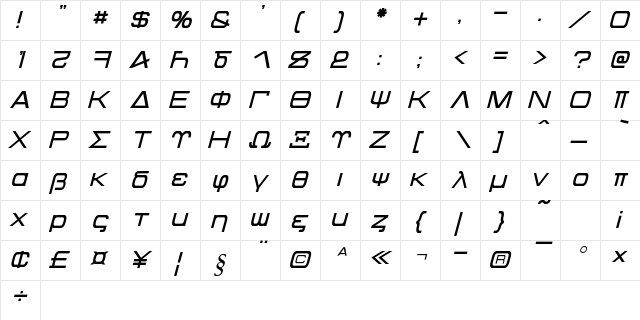
Kentaurus Italic
| Foundry | Neale Davidson |
| Designer | Neale Davidson |
Design Context for Kentaurus Typeface
Kentaurus takes a measured approach to typography — its balanced proportions and neutral character make it a reliable workhorse for both digital and print work. The slanted form adds forward momentum and visual energy.
Pro Tip: Use Kentaurus for emphasis, pull quotes, and subheadings where its slanted energy can add rhythm to the layout.